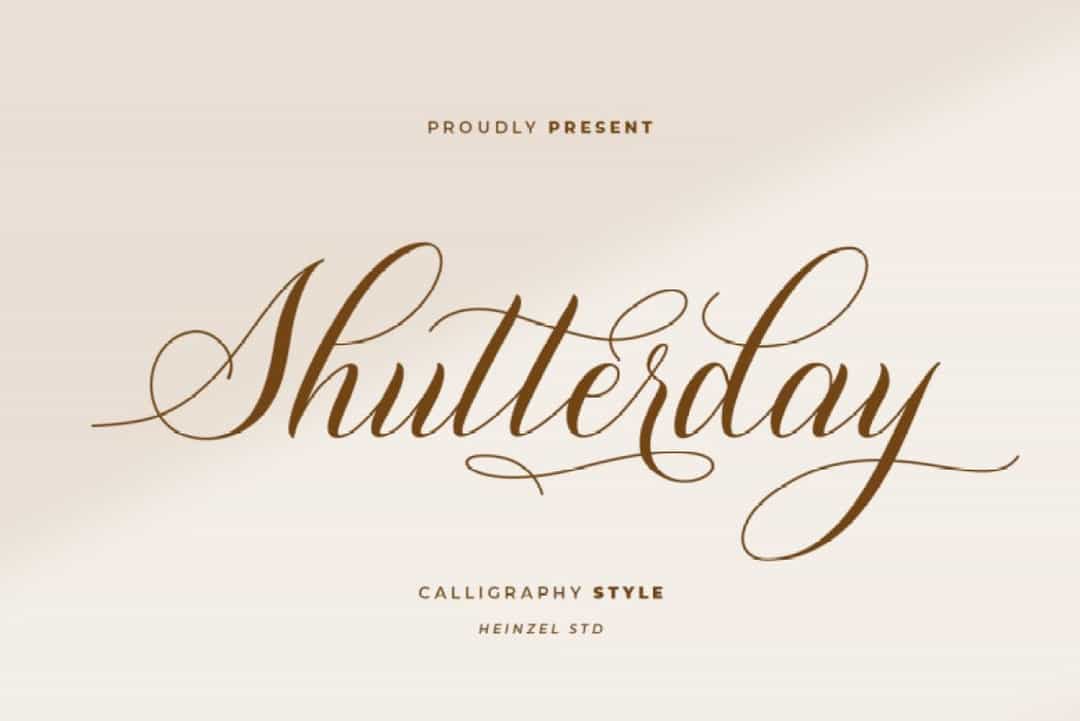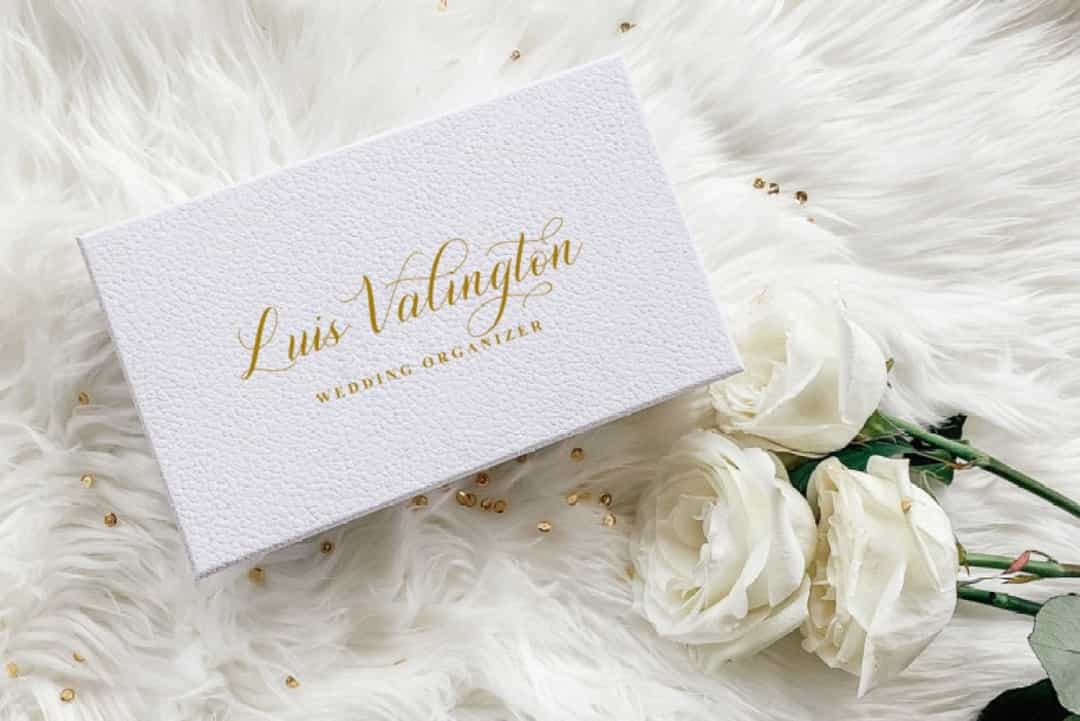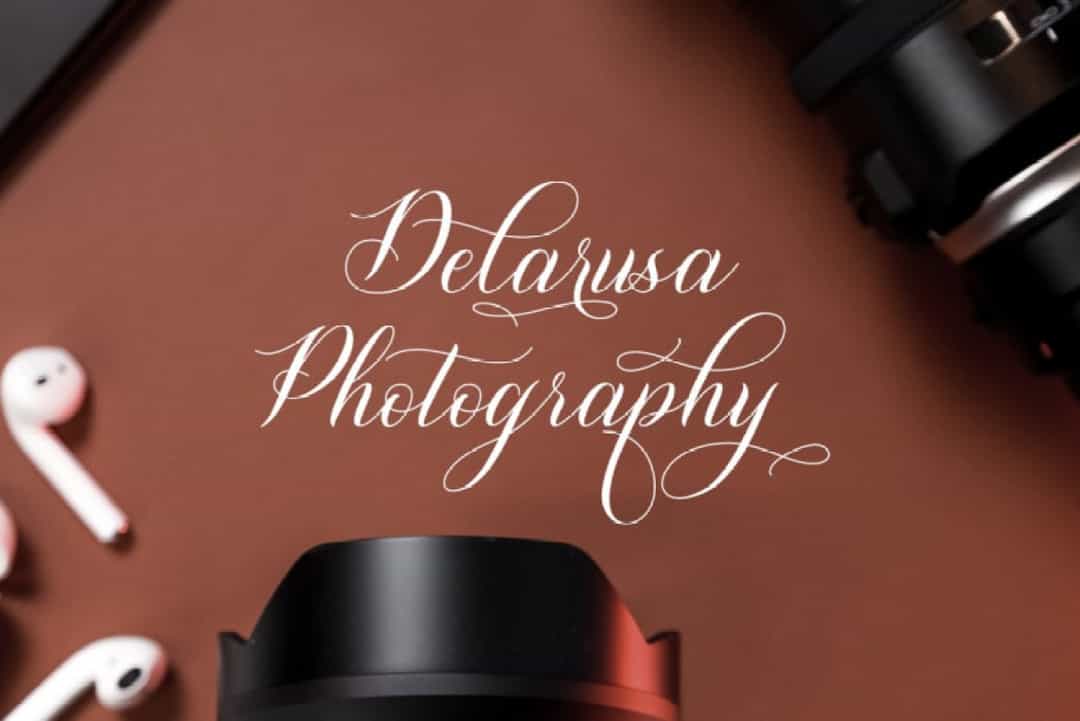
Shutterday is nothing but an elegant script font that has a perfect flow to it. This is something that you will be able to do since this font is PUA encoded! Its not too thin and not too thick, but rather elegant and versatile this font was designed to add elegance and variety to your designs.